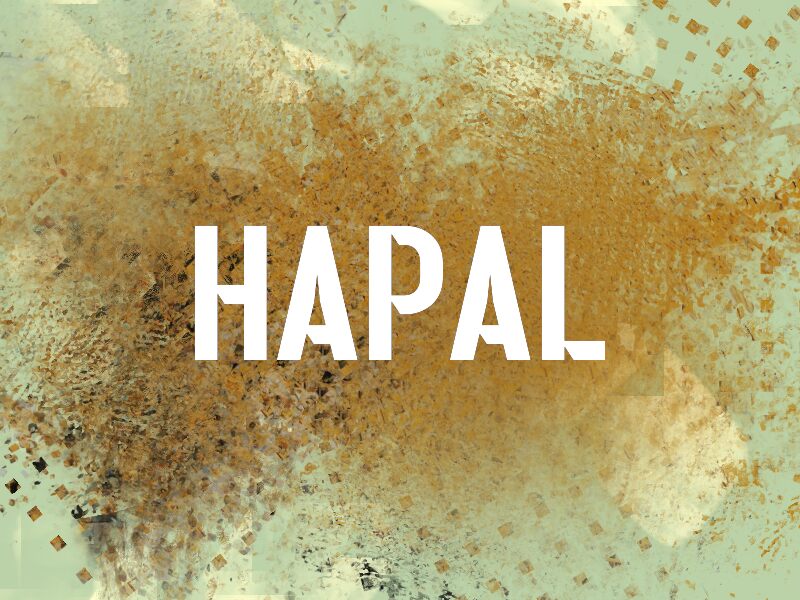
HAPAL
Hapal font by wep is a condensed typeface drawing from retro-inspired geometric and modernist influences. It features sharp angles and a bold presence, making it an instant eye-catcher. This free font shows great legibility even when used in small size which makes it both effective and versatile.
Hapal looks good on posters, event invitations, emblems, badges, book covers, titles; apparel designs like t-shirts and caps; advertisements like magazine ads; greetings cards for birthdays or other occasions where uniqueness goes noticed!